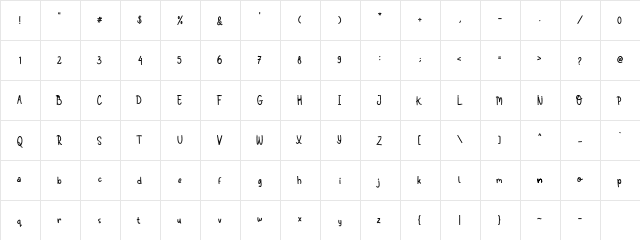
Kagomechan Texture Demo Version Regular
Design Context for Kagomechan Texture Demo Version Typeface
Kagomechan Texture Demo Version embraces imperfection — its rough, textured character adds raw authenticity to designs that want to feel lived-in and unconventional.
Suited to punk-influenced zines, underground music branding, streetwear, and raw, anti-corporate design.
Pro Tip: Pair Kagomechan Texture Demo Version with intentionally raw or lo-fi design elements. Fighting against it with overly polished surroundings will undermine its personality.